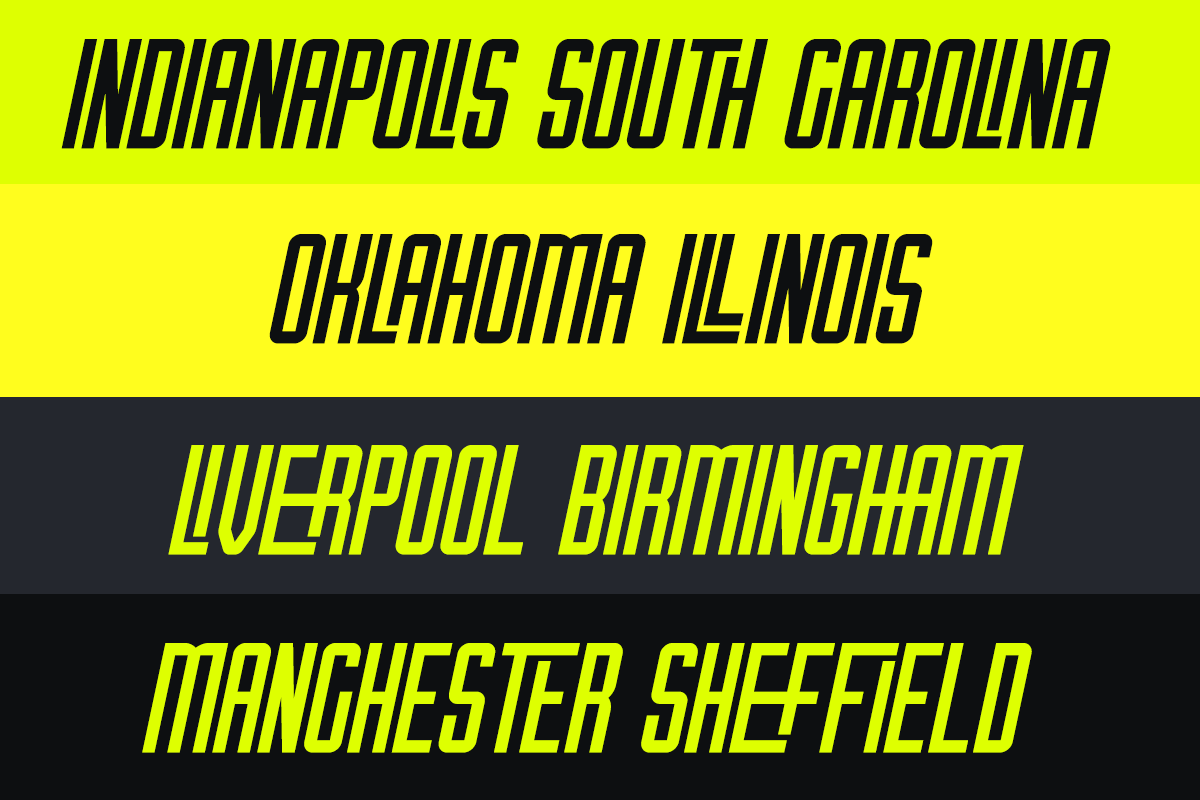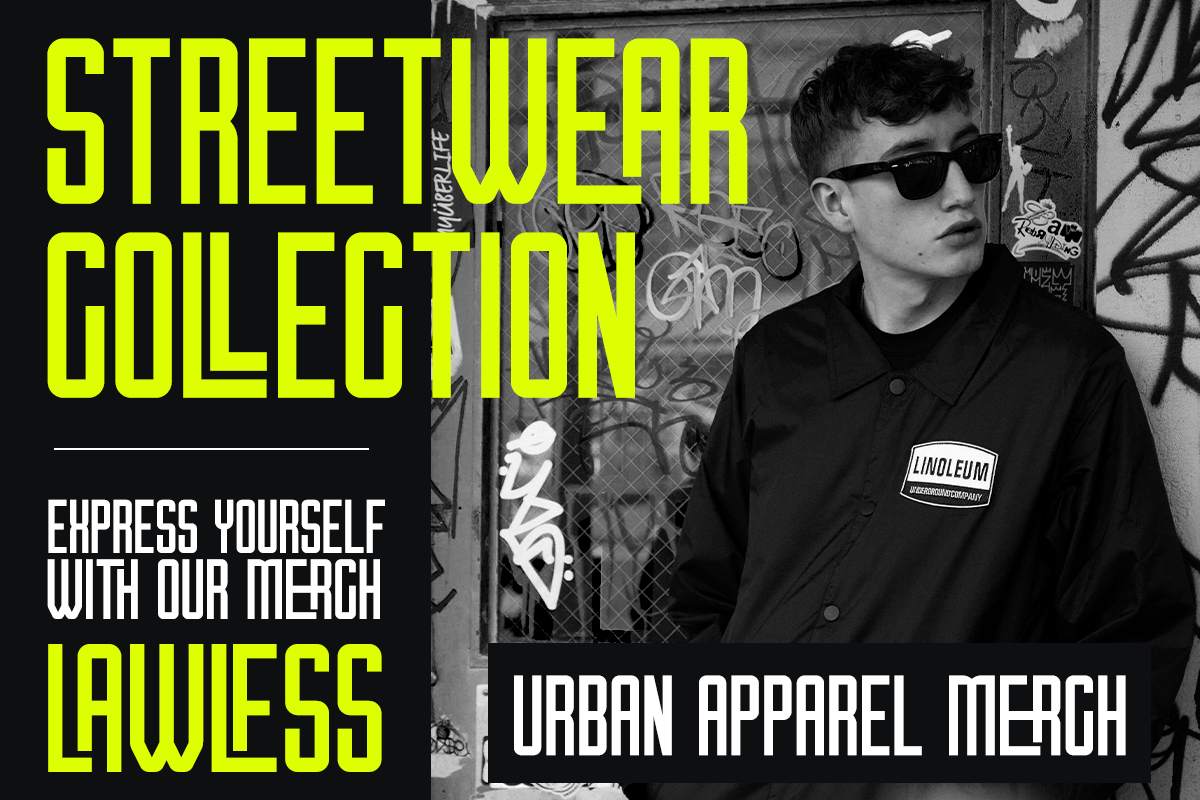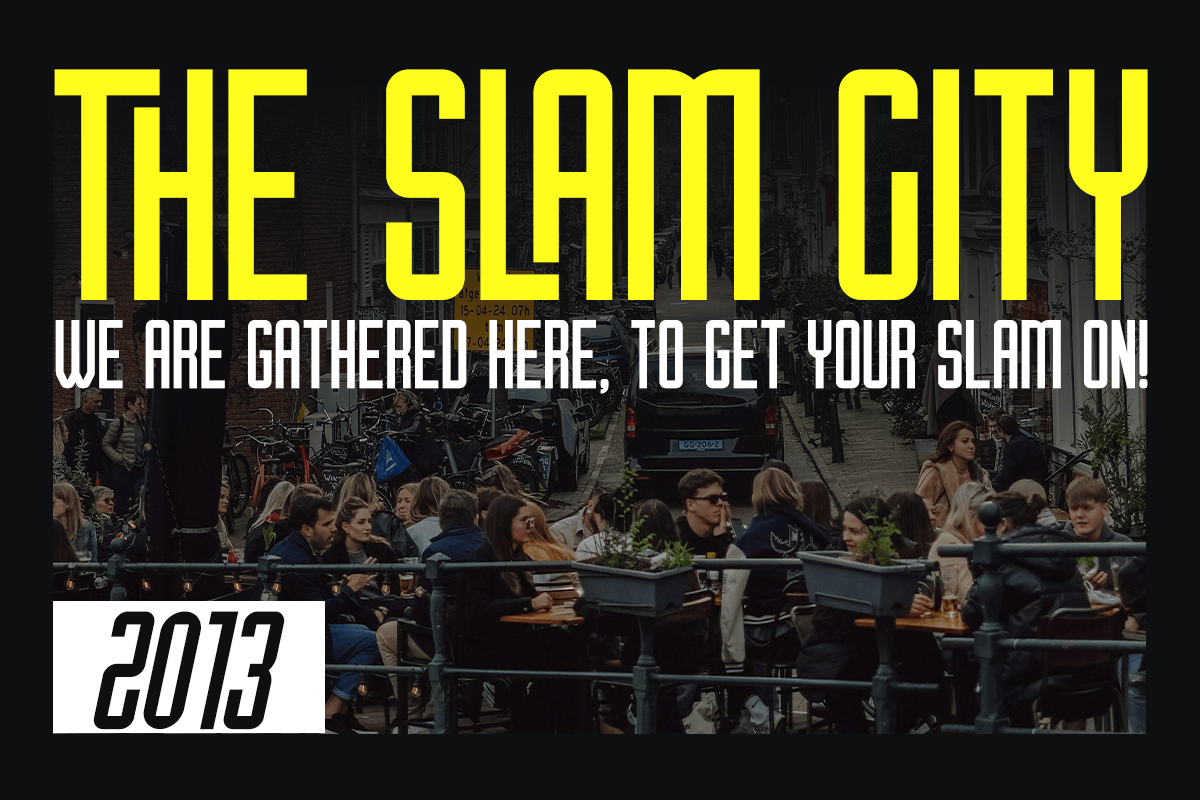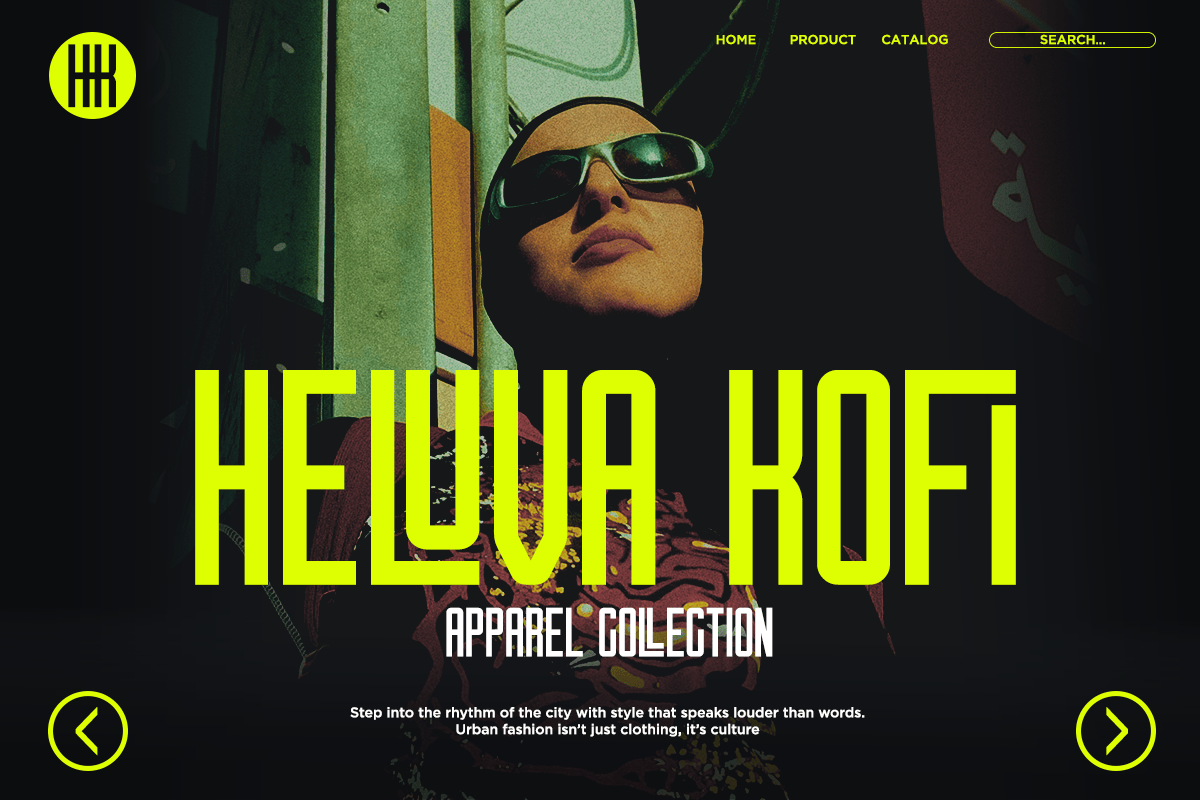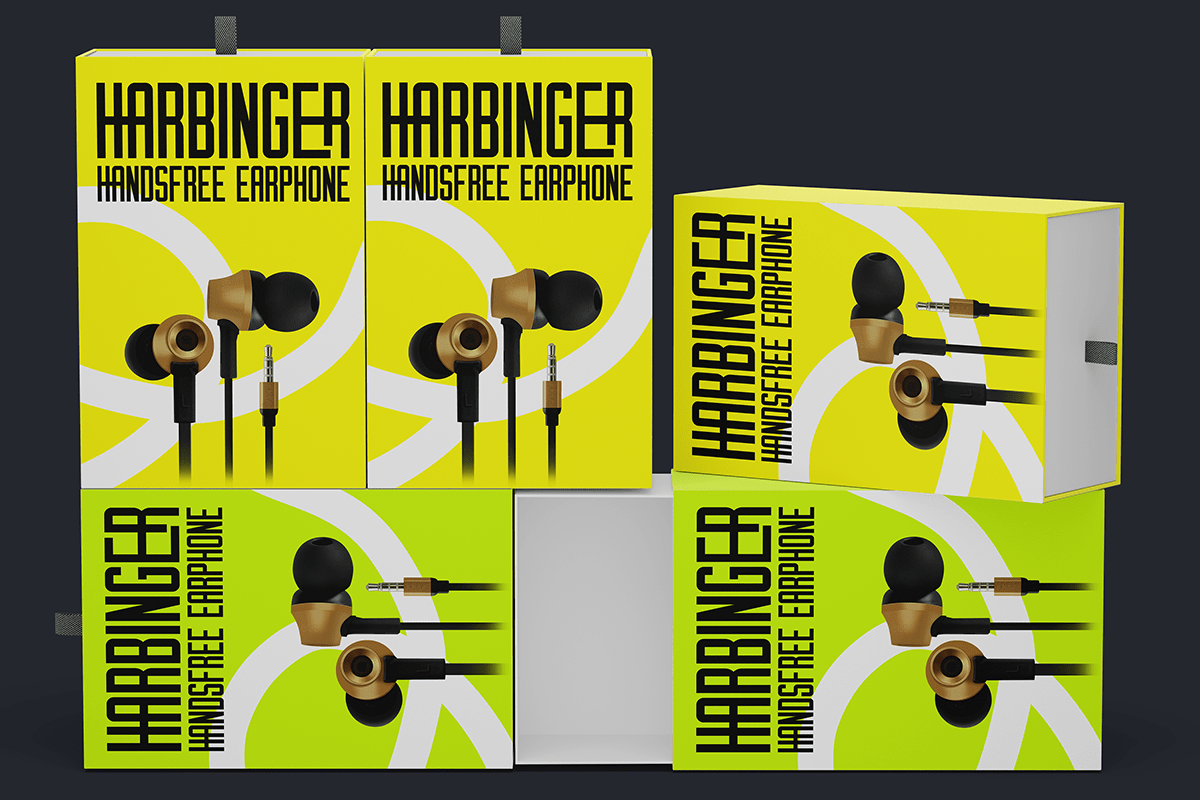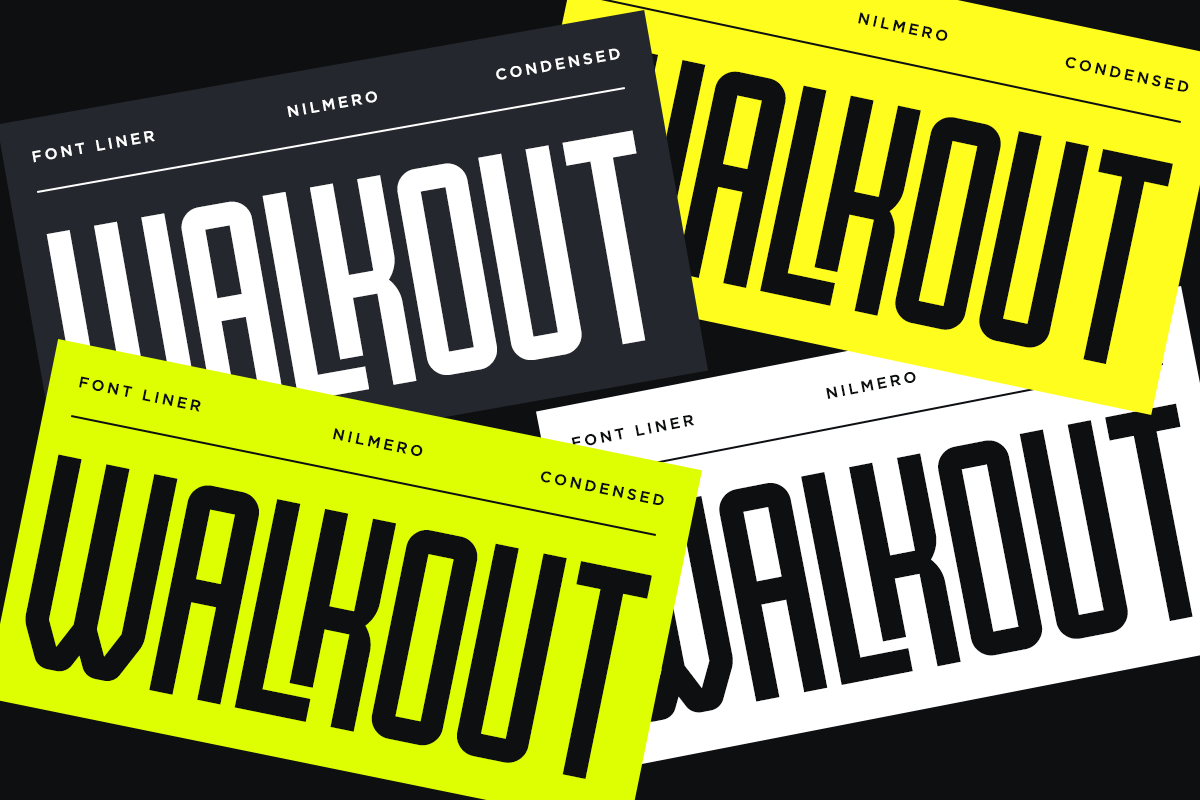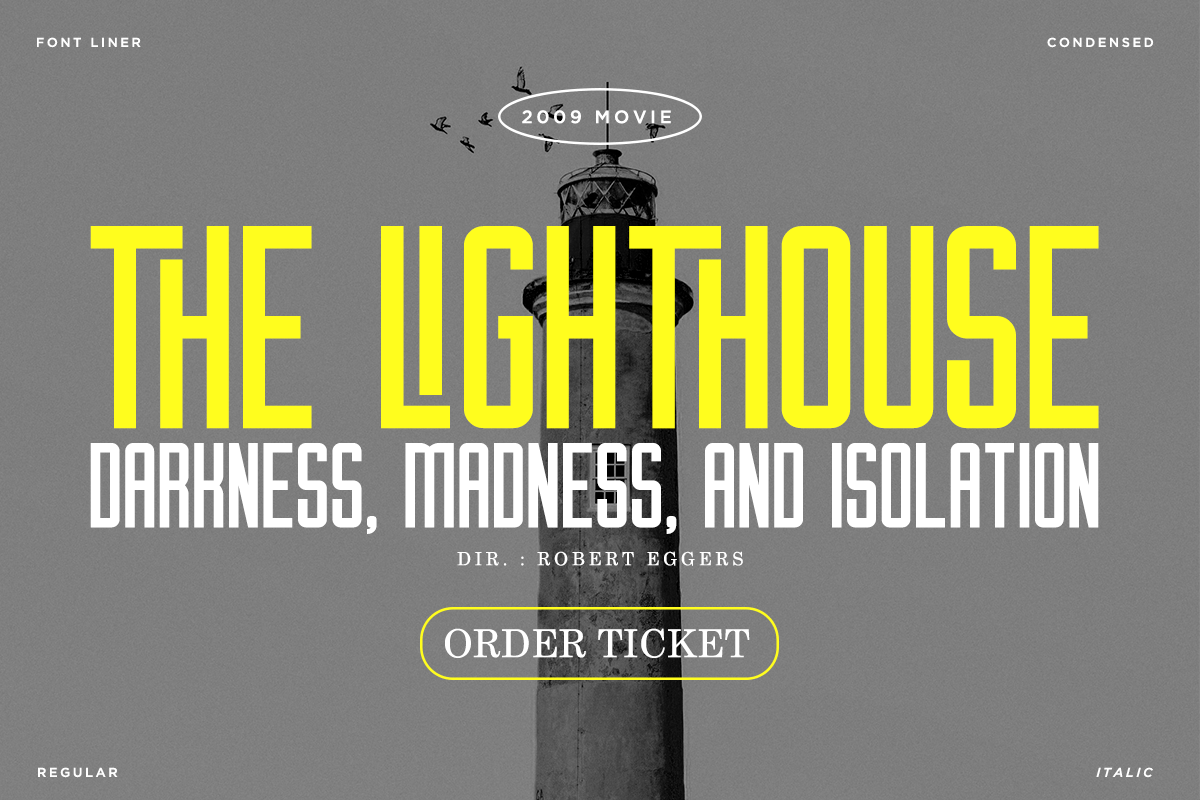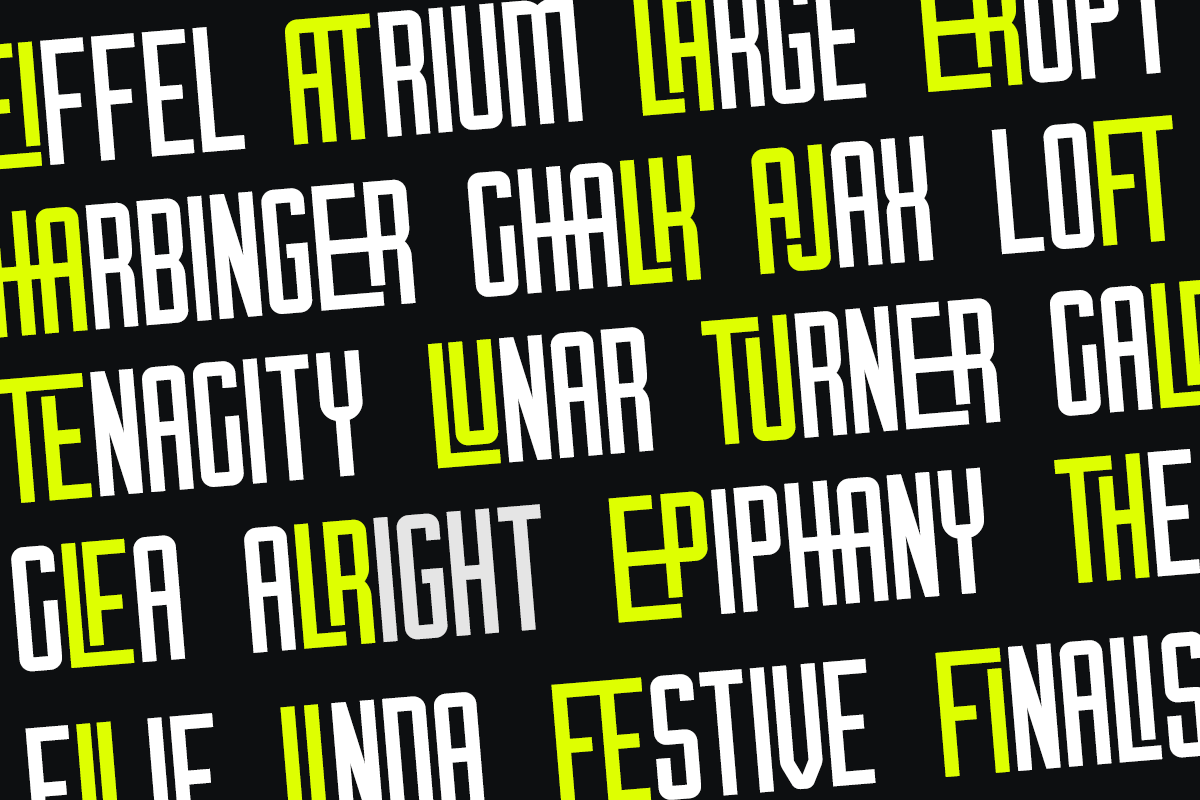
Nilmero – Bold Condensed Sans Serif
Nilmero is a bold condensed sans serif typeface built for modern branding that demands attention. With its tall proportions, clean geometric structure, and confident industrial aesthetic, Nilmero delivers maximum visual impact while maintaining exceptional readability. Whether you’re creating striking headlines, sports branding, fashion campaigns, or futuristic editorial layouts, this typeface provides a powerful presence that stands out across both print and digital media.
Designed with versatility in mind, Nilmero performs beautifully in posters, magazine covers, packaging, apparel, advertising, website headers, social media graphics, signage, and logo design. Its condensed construction makes it ideal for space-efficient typography while preserving a strong visual rhythm. The included multilingual support, punctuation, numbers, and complete character set ensure professional flexibility for global creative projects.
From streetwear labels and urban branding to technology startups, automotive campaigns, esports graphics, fitness brands, architecture presentations, and contemporary visual identities, Nilmero adapts effortlessly to a wide range of creative directions. If you’re looking for a condensed display typeface that combines modern minimalism with bold personality, Nilmero is an excellent choice for creating memorable and impactful designs.
– Stylistic alternates
– Uppercase, Lowercase & Ligatures